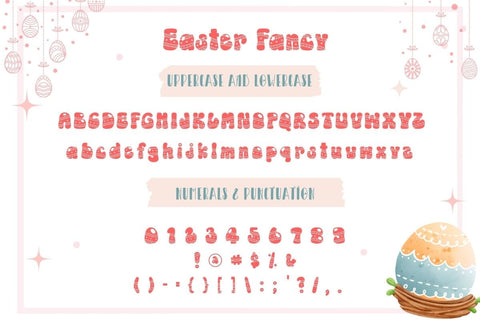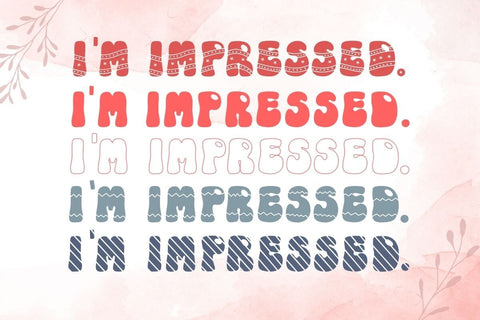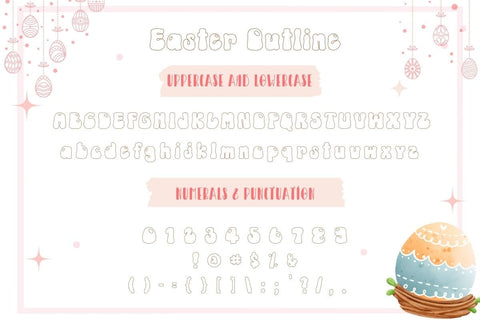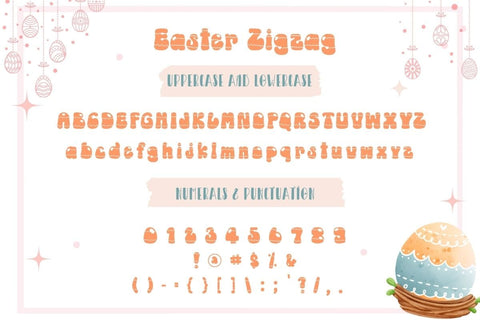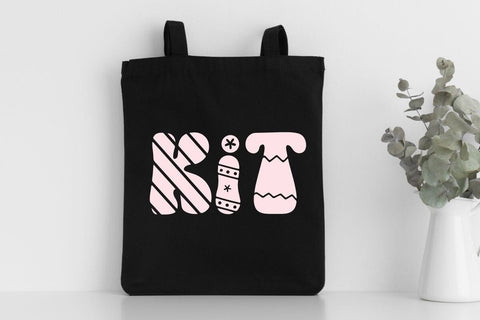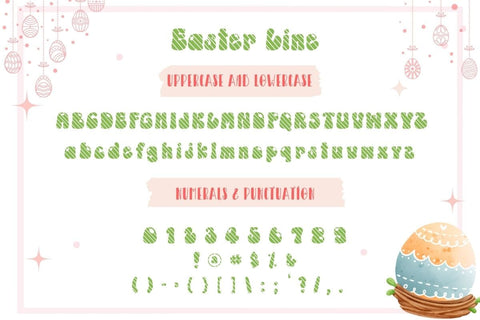
Easter - Cute Groovy Font
Easter are cute decorative fonts in 5 styles. (fancy, line, zigzag, outline and regular) Bold fonts combined with different elements get new fonts that are cute and fun. Perfect for creating a wide variety of new designs to match products such as banners, content, mugs, cards, shirts, stationery, social media posts, and more!